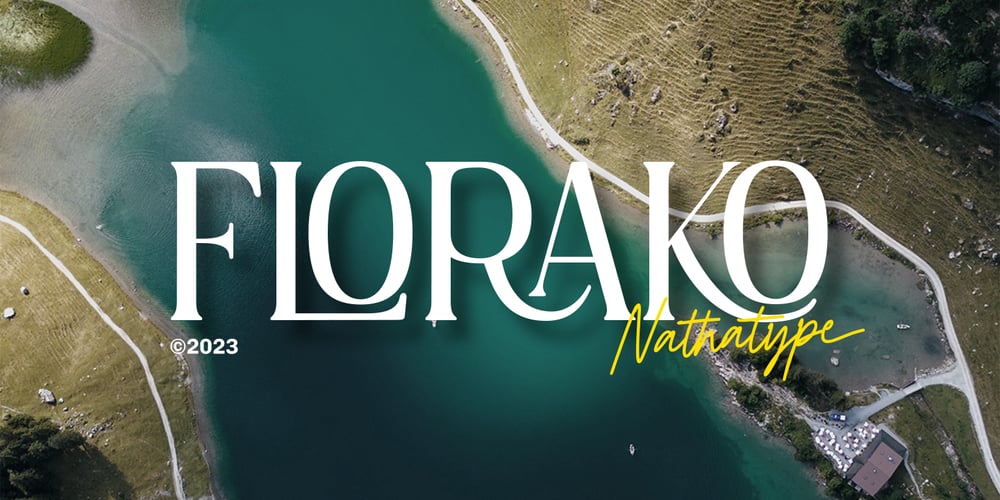
Florako Font Family was designed by Donis Miftahudin and published by Nathatype. Florako contains 1 styles and family package options. Florako is a mesmerizing serif font designed with an elegant and modern touch. With its lightweight, this typeface exudes a sense of delicacy and refinement, adding a touch of sophistication to your creative projects. The slender letterforms with precise lines and graceful curves embodies the perfect balance between elegance and modernity. The clean and refined serifs lend a classic touch to the font, while the contemporary styling infuses it with a fresh and current vibe. This harmonious fusion creates a captivating aesthetic that is both timeless and on-trend. The light weight of Florako adds to its graceful and delicate appearance, making it ideal for projects that require a subtle and refined typography while maintaining its legibility. You can also enjoy the available features here.Features: Alternates Ligatures Stylistic Sets Multilingual Supports PUA Encoded Numerals and Punctuations Florako fits in headlines, logos, posters, titles, invitations, branding materials, print media, editorial layouts, website headers, and many more. Find out more ways to use this font by taking a look at the font preview.Thanks for purchasing our fonts. Hopefully, you have a great time using our font. Feel free to contact us anytime for further information or when you have trouble with the font. Thanks a lot and happy designing.